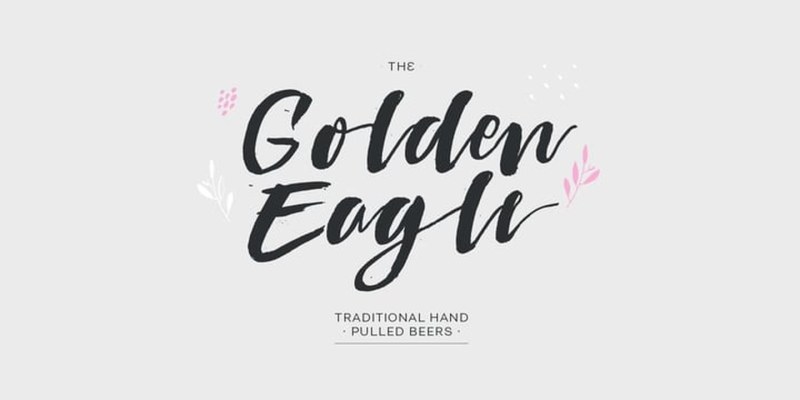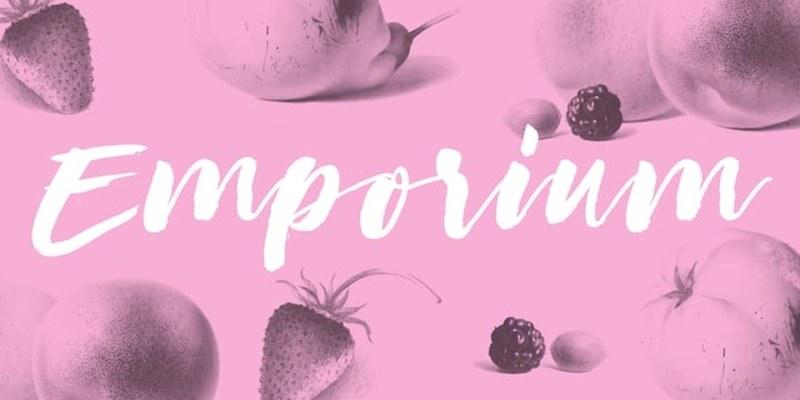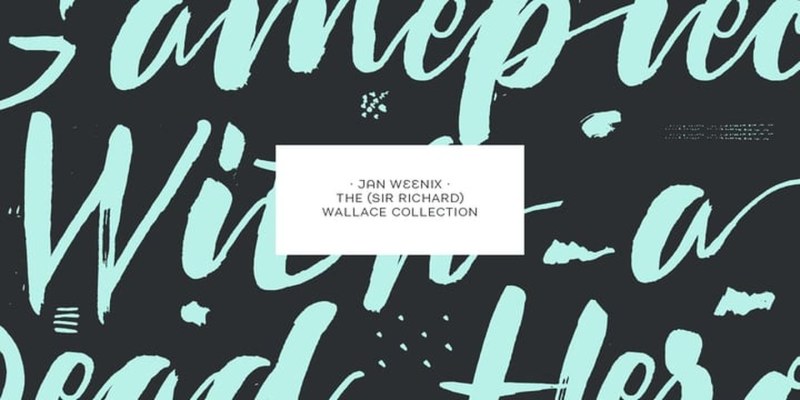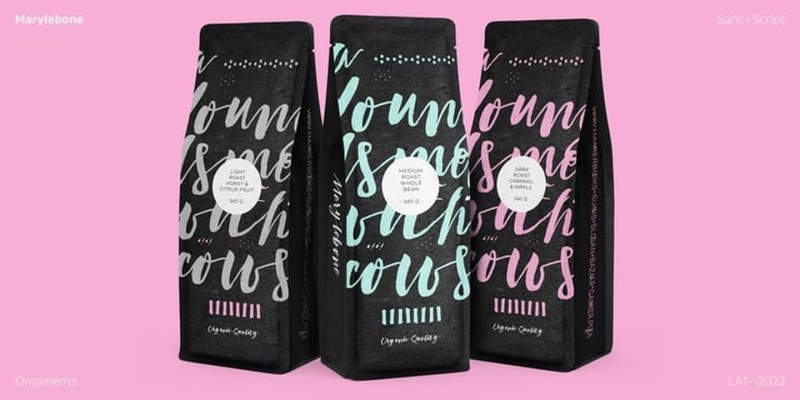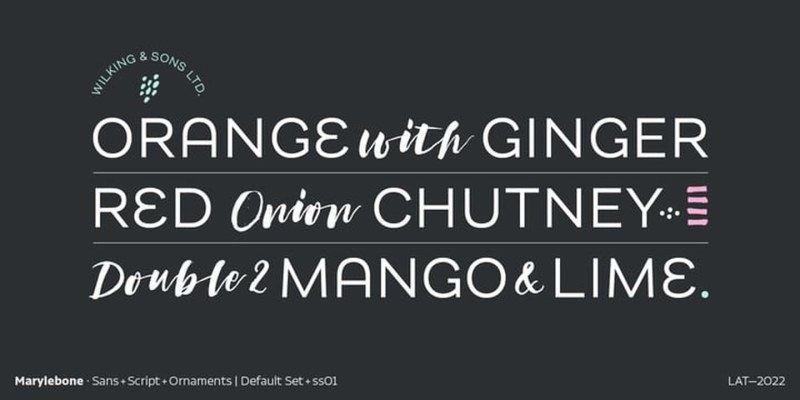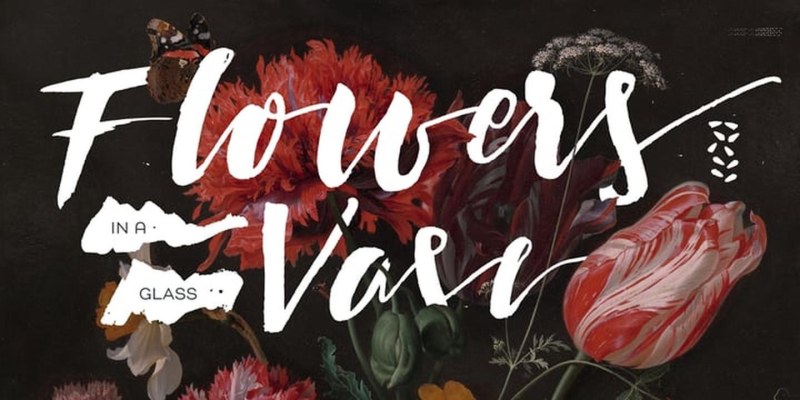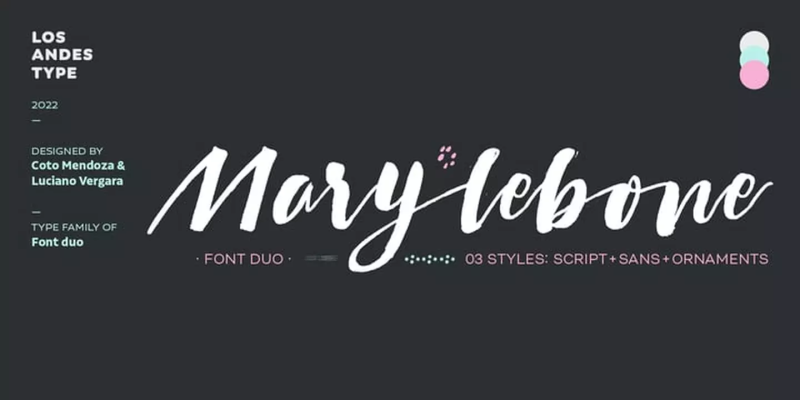
Marylebone Font Family
Marylebone is a font duo inspired by its namesake neighbourhood in central London. Marylebone was designed to compose short text for advertisements, blackboards and shop…
Marylebone is a font duo inspired by its namesake neighbourhood in central London. Marylebone was designed to compose short text for advertisements, blackboards and shop windows in coffee shops, small bookstores, flower shops and local shops. The set is made up of a hand made brush script, composed of 519 characters including ligatures, initials and terminals; as well as a very clean, geometric unicase sans serif with some alternates and ligatures that can double as monograms, it also includes a hand-drawn floral dingbat set.
Marylebone allows you to design beautiful compositions for packaging, advertising, quotes, wall art, branding, photography overlays, magazines, motion graphics, scrapbooking, planners, window art, tags, tote bags and much more, thanks to its irregular appearance that gives a unique personality to your design projects.
Where Marylebone Font Family works best
Marylebone Font Family brings a personal, handwritten warmth to invitations, menus and place cards.
Craft brands — coffee, cosmetics, bakery — use scripts like Marylebone Font Family for signature-style logos and labels.
Pair Marylebone Font Family with a plain sans for quotes, stories and Pinterest pins that feel handmade.
Marylebone Font Family is a Script And Handwritten typeface tagged Branding, Brush, Clean, Geometric. It works well for headlines, logos, posters, social media graphics and branding projects that need a distinctive script and handwritten look.